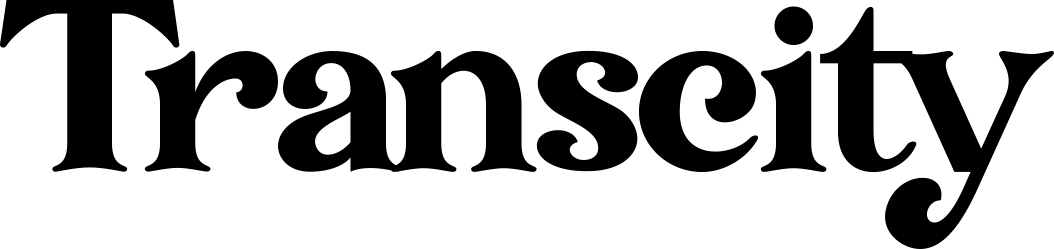
Transcity Font
Transcity font gives a romantic theme to your party flyer with not much time to spend. In addition, you can use this script font to design logos, posters, and business cards. This serif font does not support number letters but can be used in many themes with attractive summer backgrounds, motivational text, and perfume brands with lovely letters.